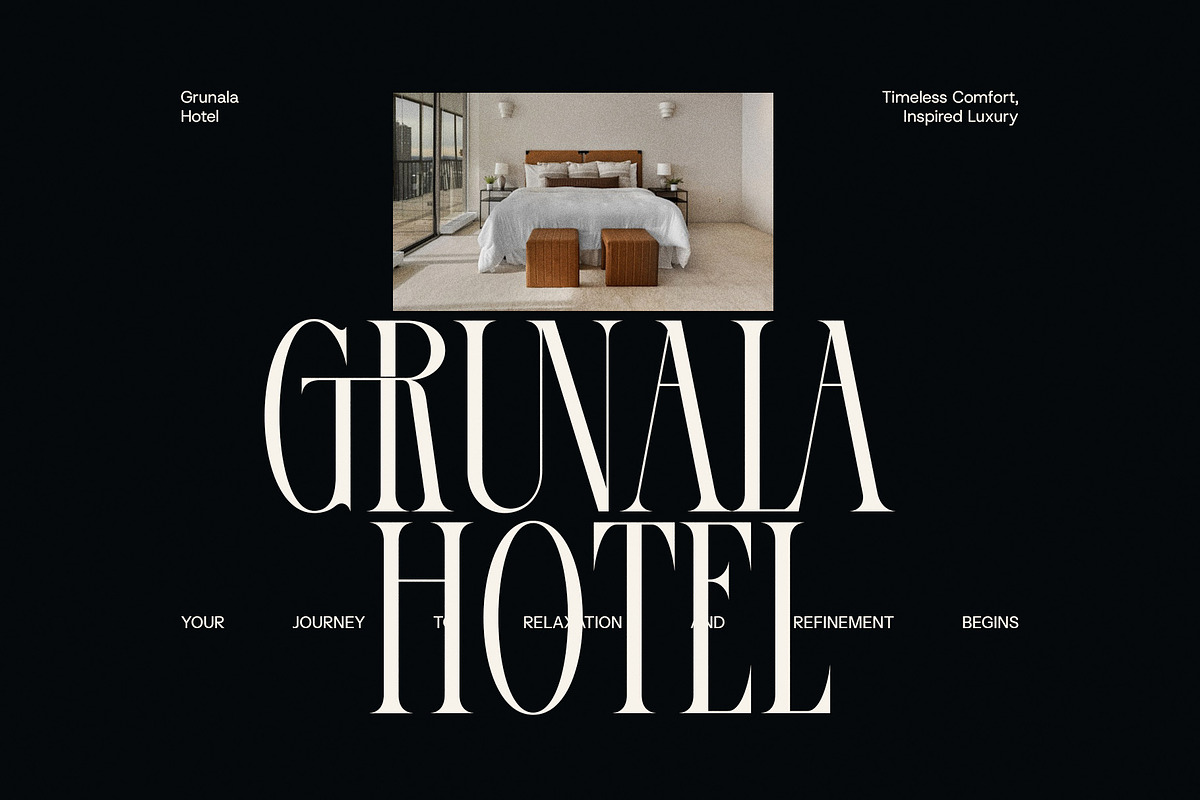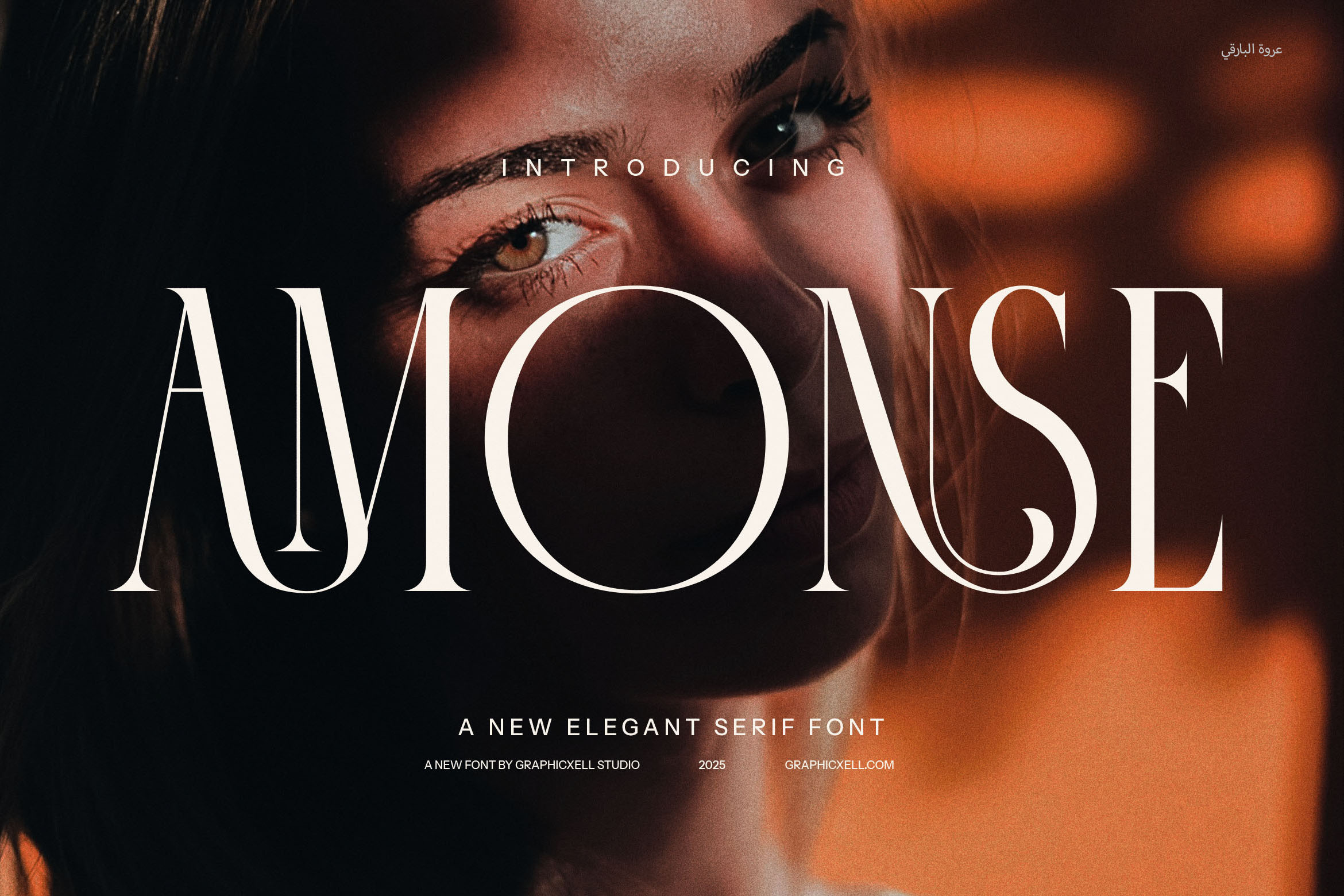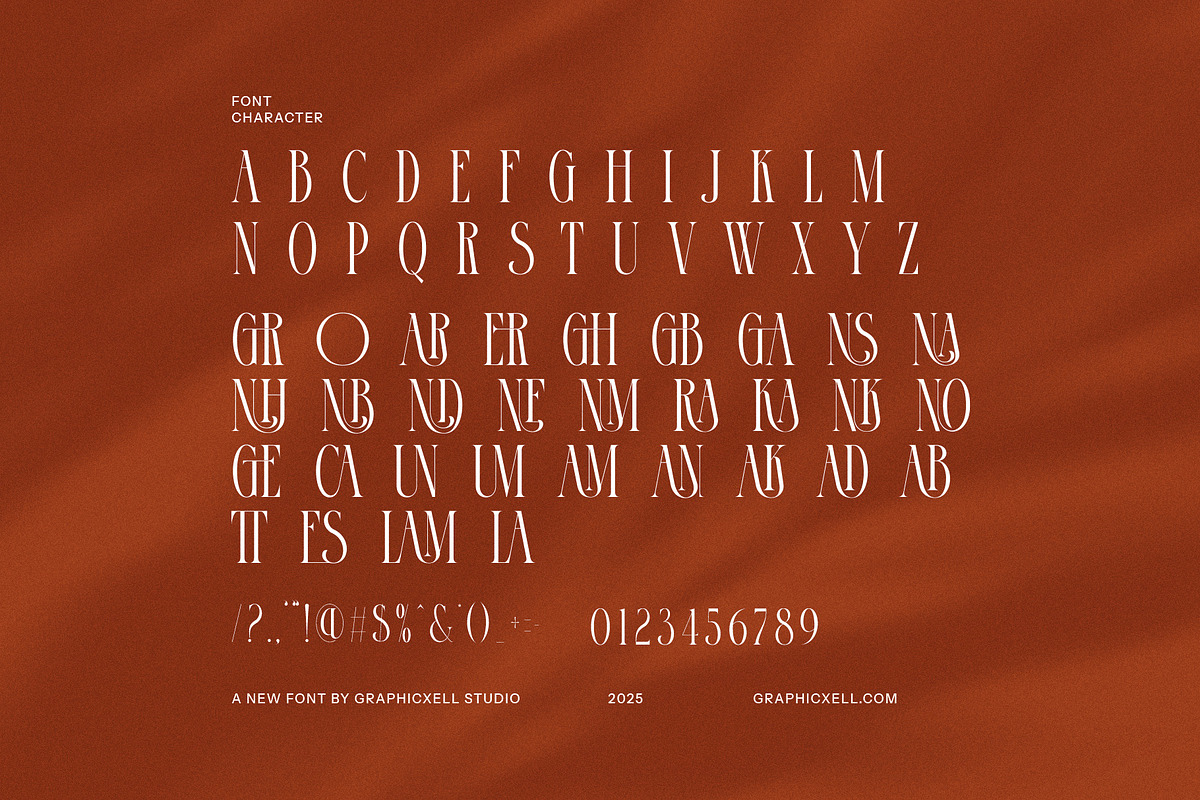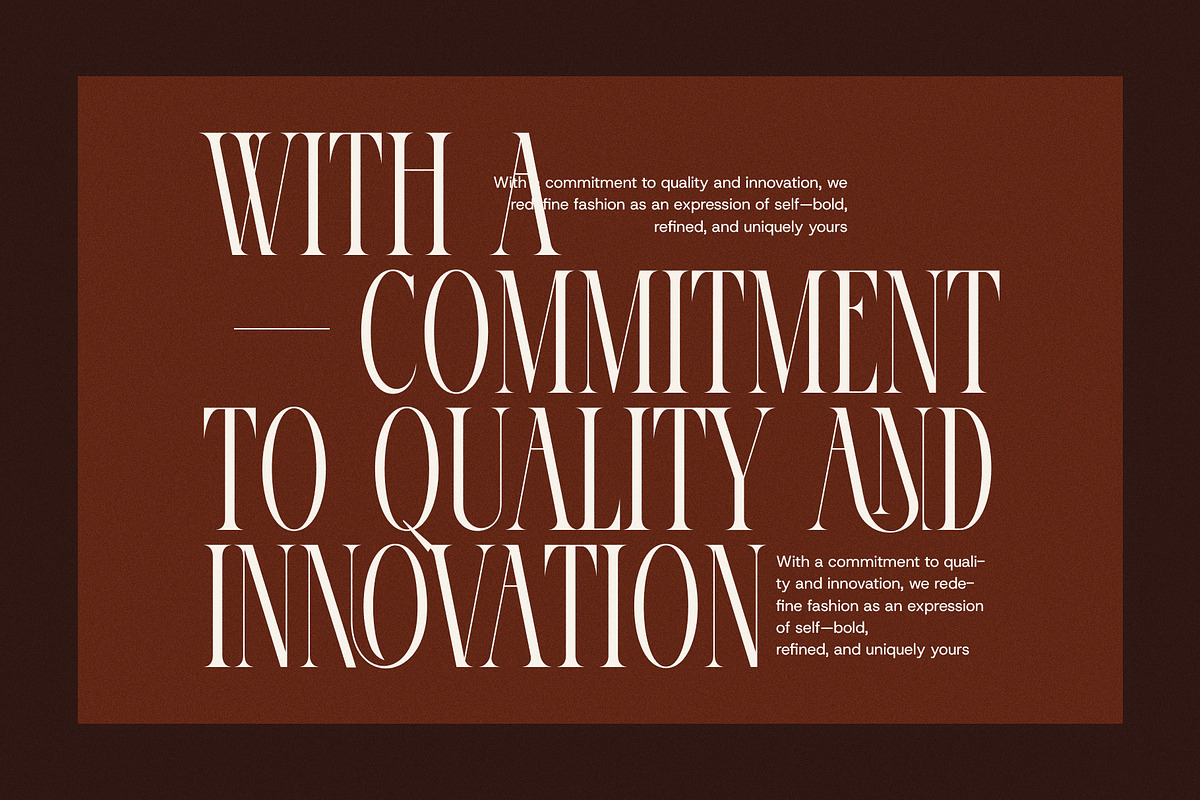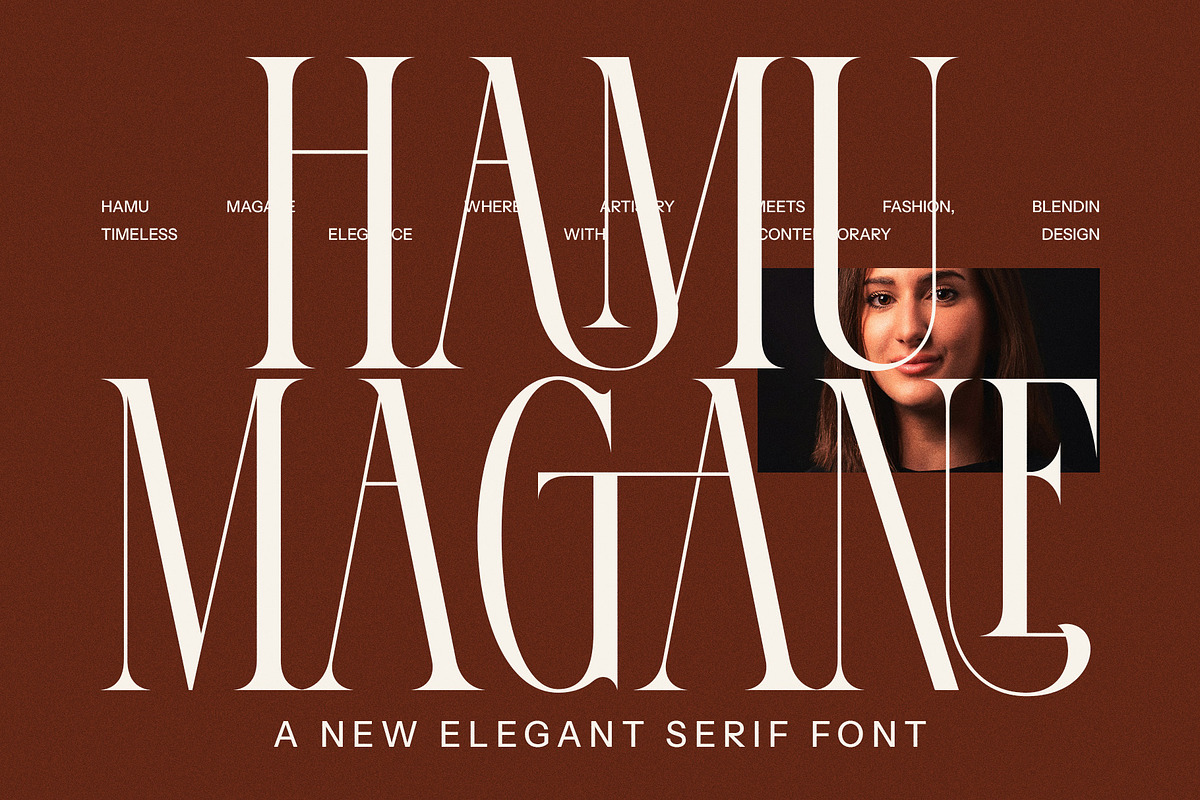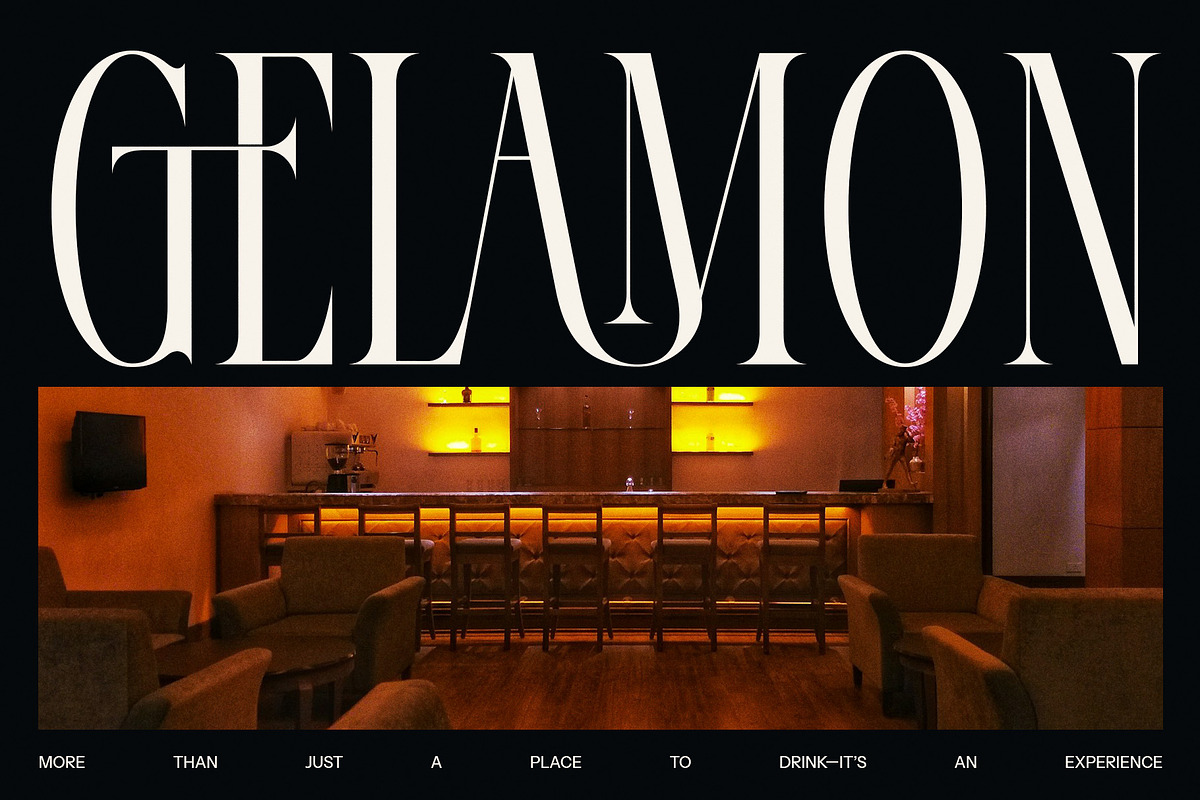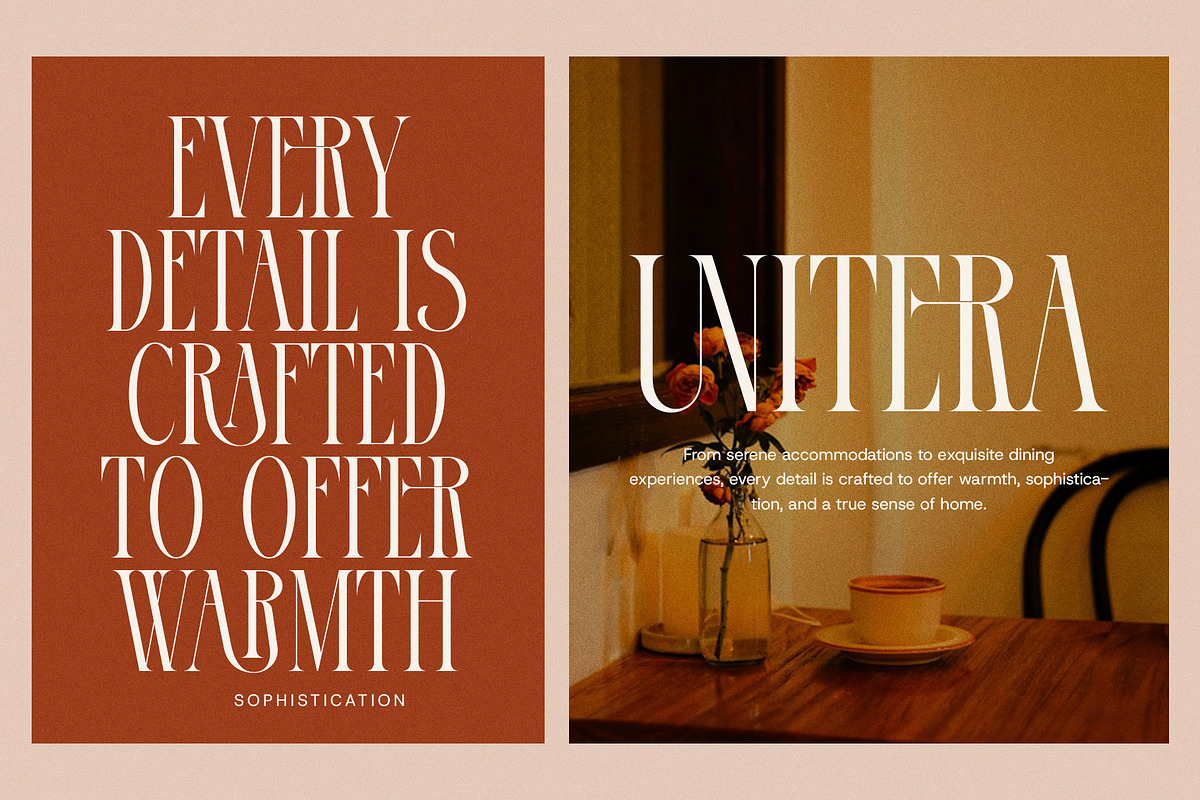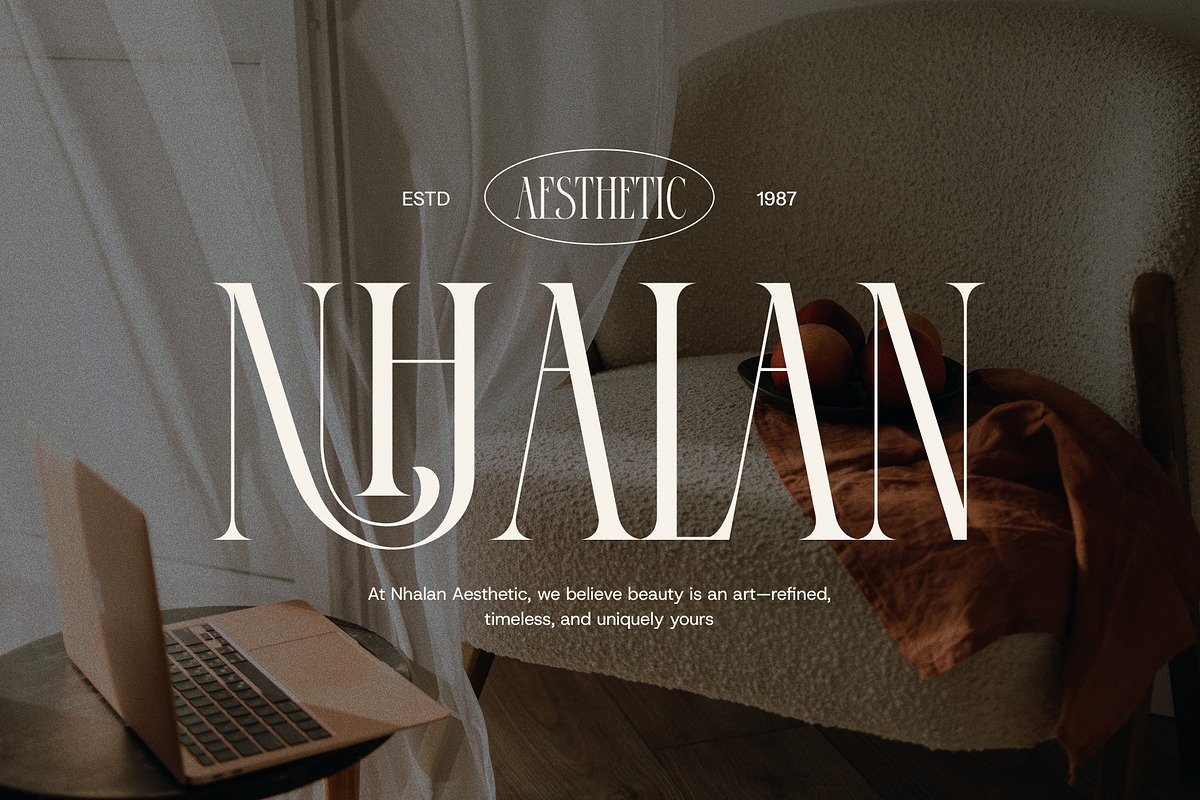
Amonse Ligature Serif Fonts
Amonse Elegant Serif is a refined and sophisticated typeface that seamlessly blends modern aesthetics with timeless elegance. Designed to exude luxury and style, this font features graceful curves, well-balanced proportions, and distinctive serifs that create a sense of refinement and exclusivity. Its high-contrast strokes and subtle details make it a perfect choice for premium branding, editorial design, and high-end product packaging.
Ideal for creating a strong yet delicate visual identity, Amonse Elegant Serif enhances logos, websites, magazines, and advertisements with its effortlessly chic appearance. Whether used for fashion, beauty, hospitality, or gourmet branding, this typeface adds a touch of class and professionalism to any project.
The font’s versatility allows it to stand out in both digital and print media, ensuring readability while maintaining a striking presence. Its stylish letterforms and fluid lines work harmoniously in headlines, product labels, invitations, and boutique signage, making it an excellent choice for designers seeking a blend of sophistication and modernity.
Amonse Elegant Serif captures the essence of luxury typography with a unique character that commands attention while maintaining an air of subtle elegance. If you’re looking for a font that embodies grace, exclusivity, and contemporary charm, Amonse Elegant Serif is the perfect choice to elevate your designs and leave a lasting impression.